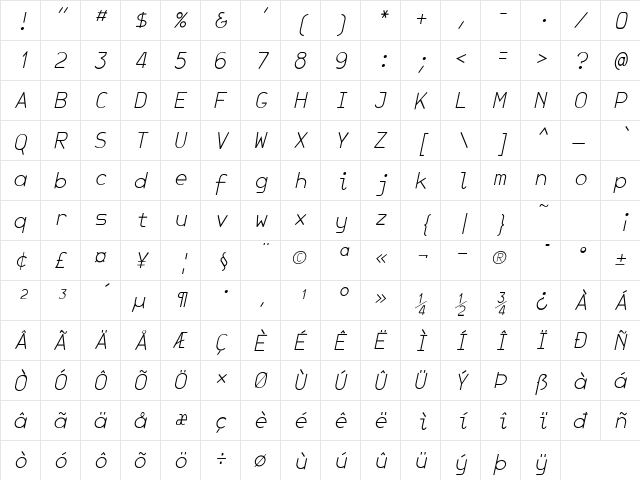
JetJaneMonoThin Italic Font Preview
Design Context for JetJaneMonoThin Typeface
JetJaneMonoThin uses fixed-width spacing throughout, giving it the structured, systematic character associated with coding environments and technical documentation. Its italic angle brings a sense of urgency and motion to the letterforms. Its slender proportions lend an understated elegance to any composition.
A natural fit for code editors, technical documentation, developer-focused branding, and terminal-inspired UI.
Pro Tip: Pair JetJaneMonoThin with a proportional sans for UI contexts where code-style labels and regular body copy need to coexist.